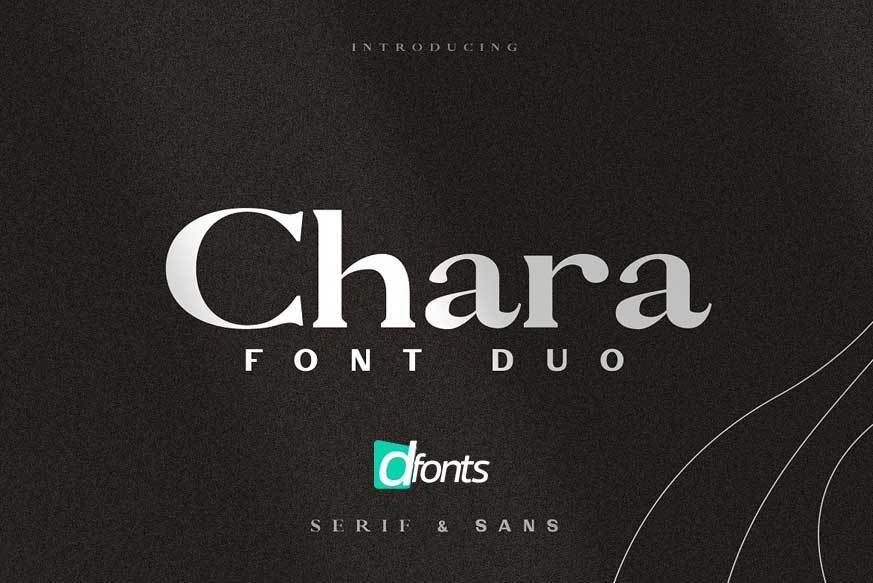
Chara Sans Serif & Serif Font Duo
The font combination helps you create elegant designs and works in large display titles, logos and small paragraphs.
Perfect for all kinds of branding projects and marketing purposes.
You can combine them in endless ways and create unique lockups.